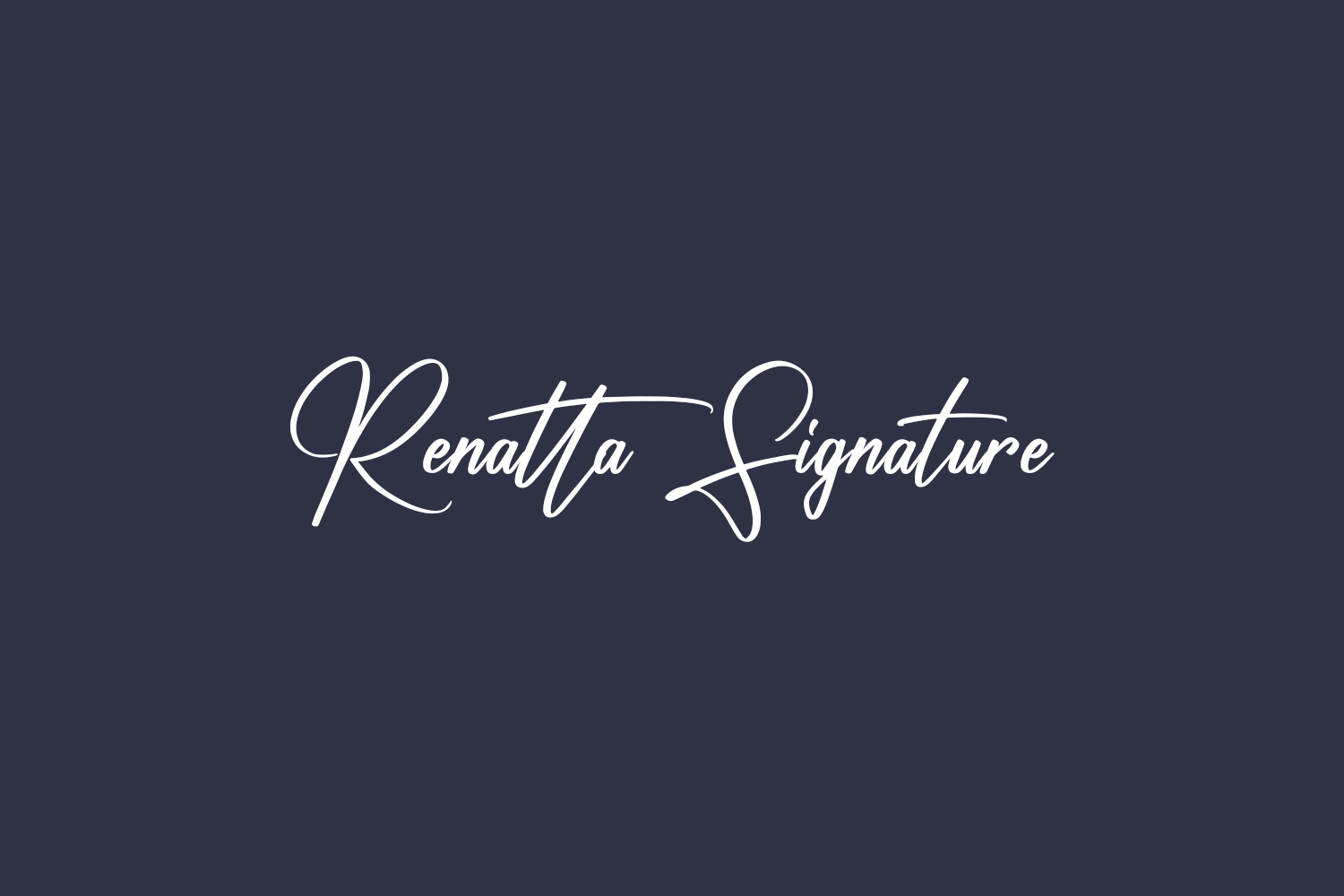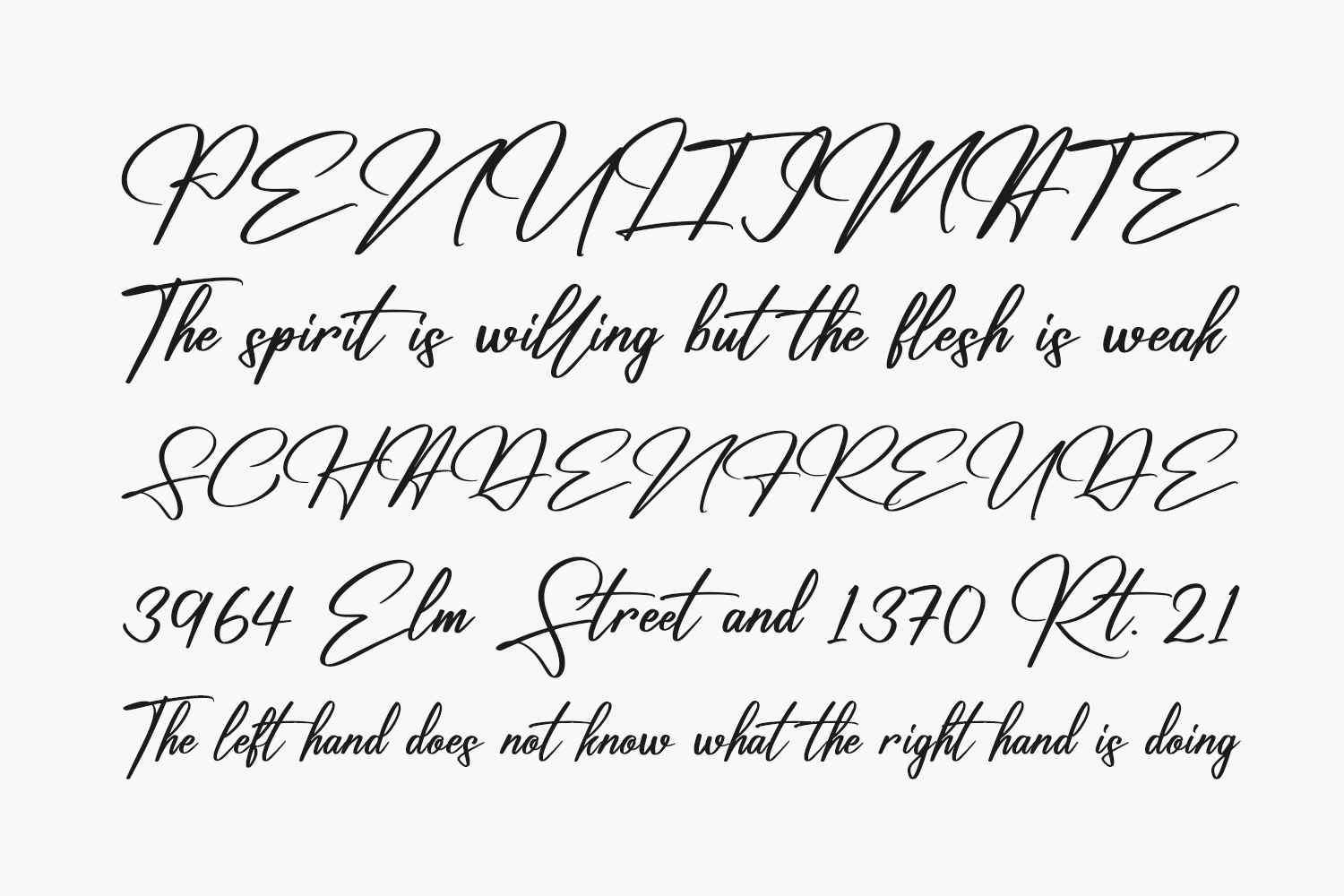
Renatta Signature Free Font Family is a fashionable and flowing script font. It has a classy, elegant, and modern look that can be used for logos, branding, invitations, stationery, wedding designs, social media posts, and much more. Renatta Signature Free Font Family was designed by Letterena Studios and is free for personal use only. Please purchase the full version for commercial use.